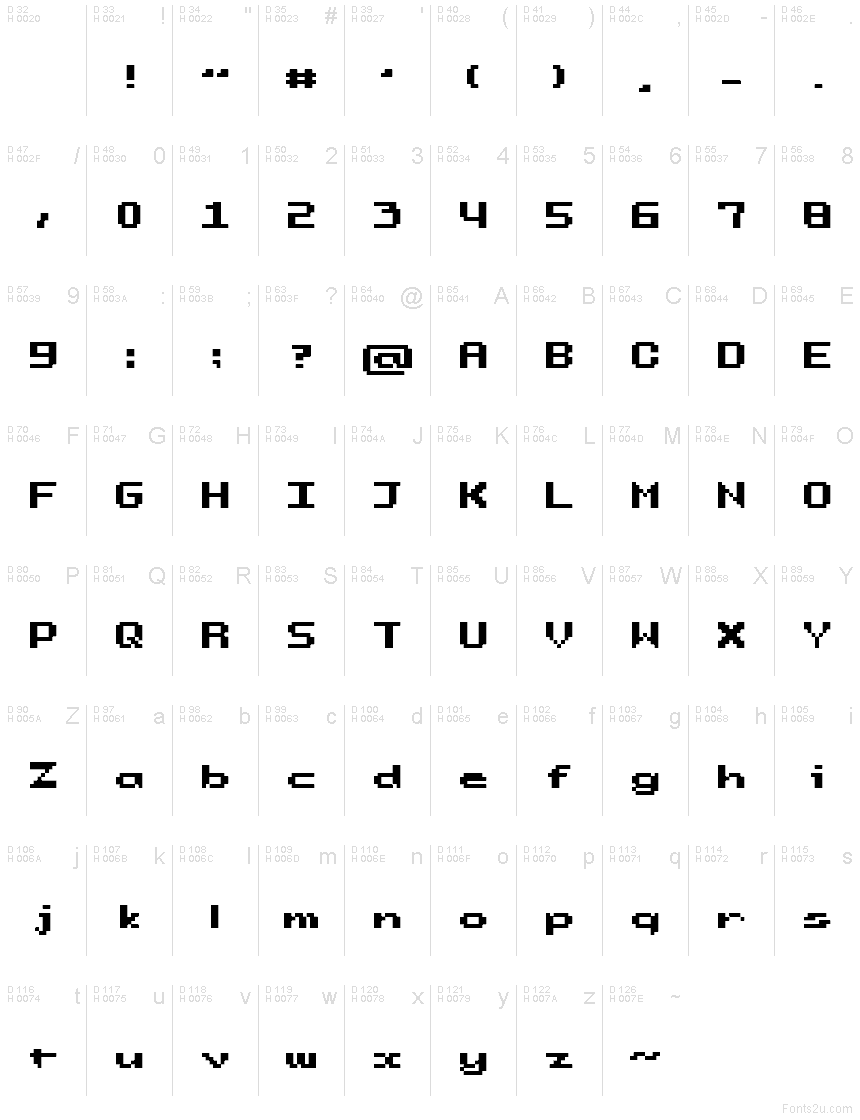
squbitzplus
Squbitzplus font by Bit Bits is a pixelated expanded free bitmap font inspired by digital-like aesthetics. Its blocky monospaced letters are especially geometric, which give the font an instantly recognizable magnetic charm. Specially designed for the simple and natural use of lowercase characters, this font would suit your plain futuristic projects.
Combining geometry with subtle originality, Squbitzplus is ideal for logos, advertising, branding, and magazine covers. Use it on interfaces of video games and mobile applications as it was originally used in designing a game’s user interface.